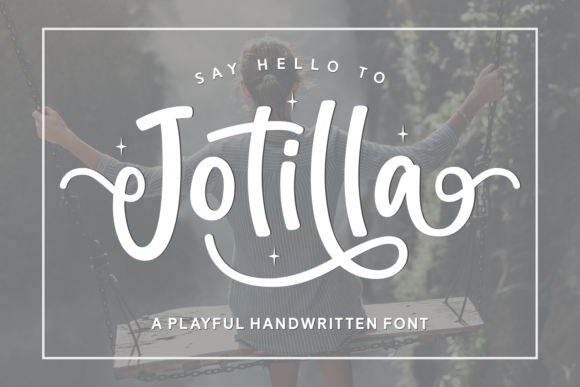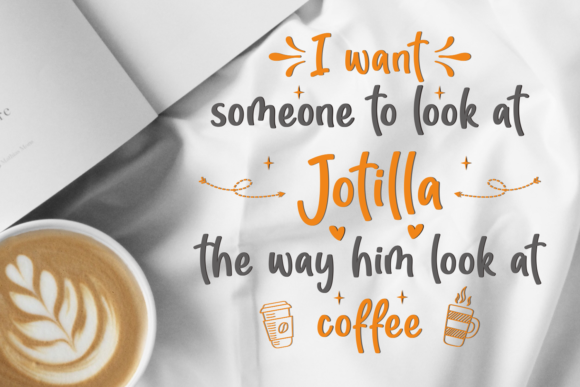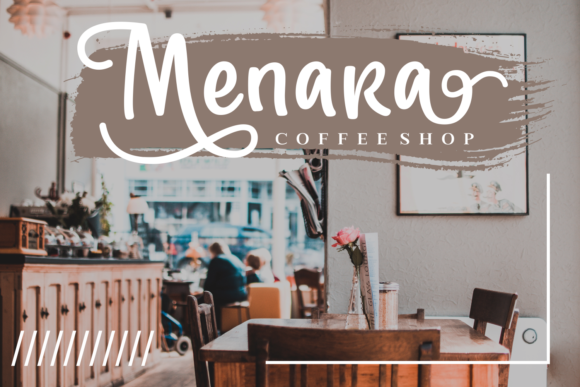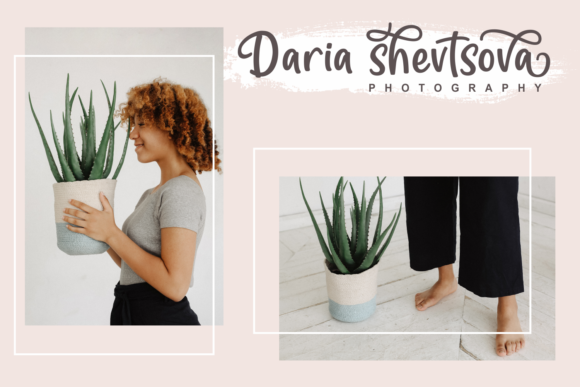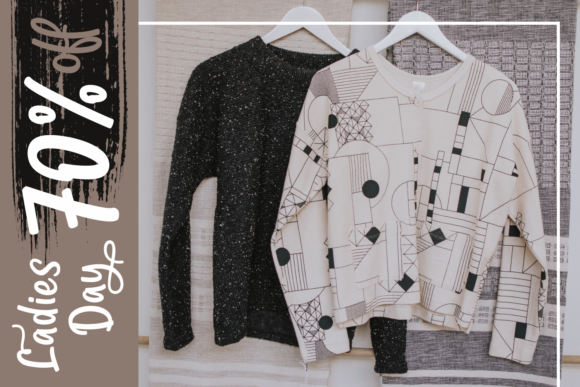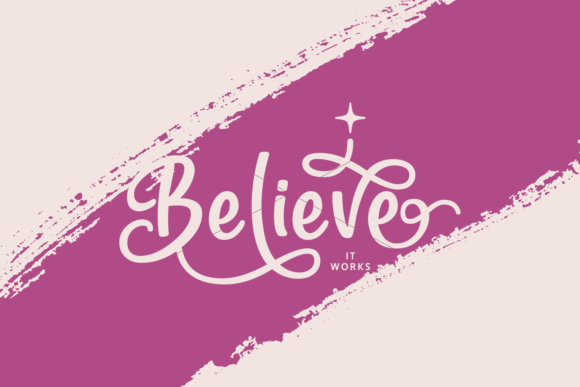
Jotilla Font
About Jotilla Font
The Jotilla is a striking, yet elegant script. It has fun letters with a perfect readability. Included are letters with beautiful swashes which will give your design an luxurious feel.